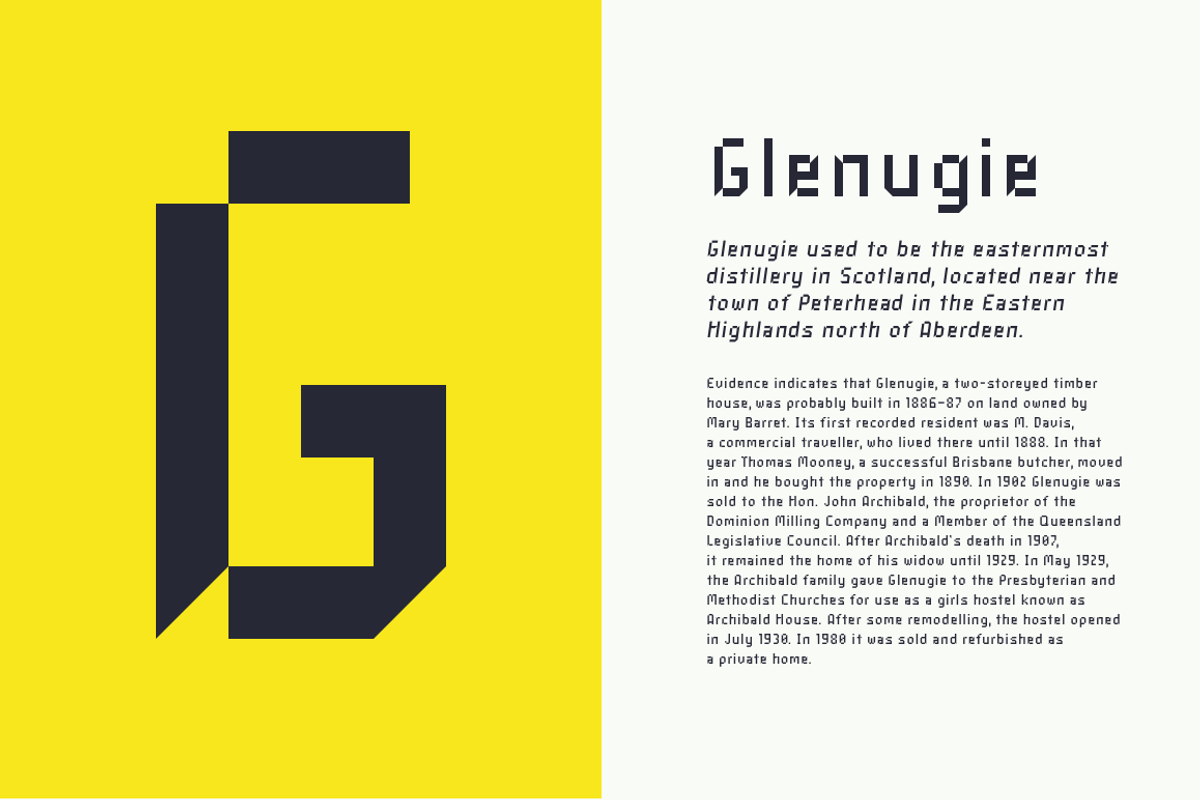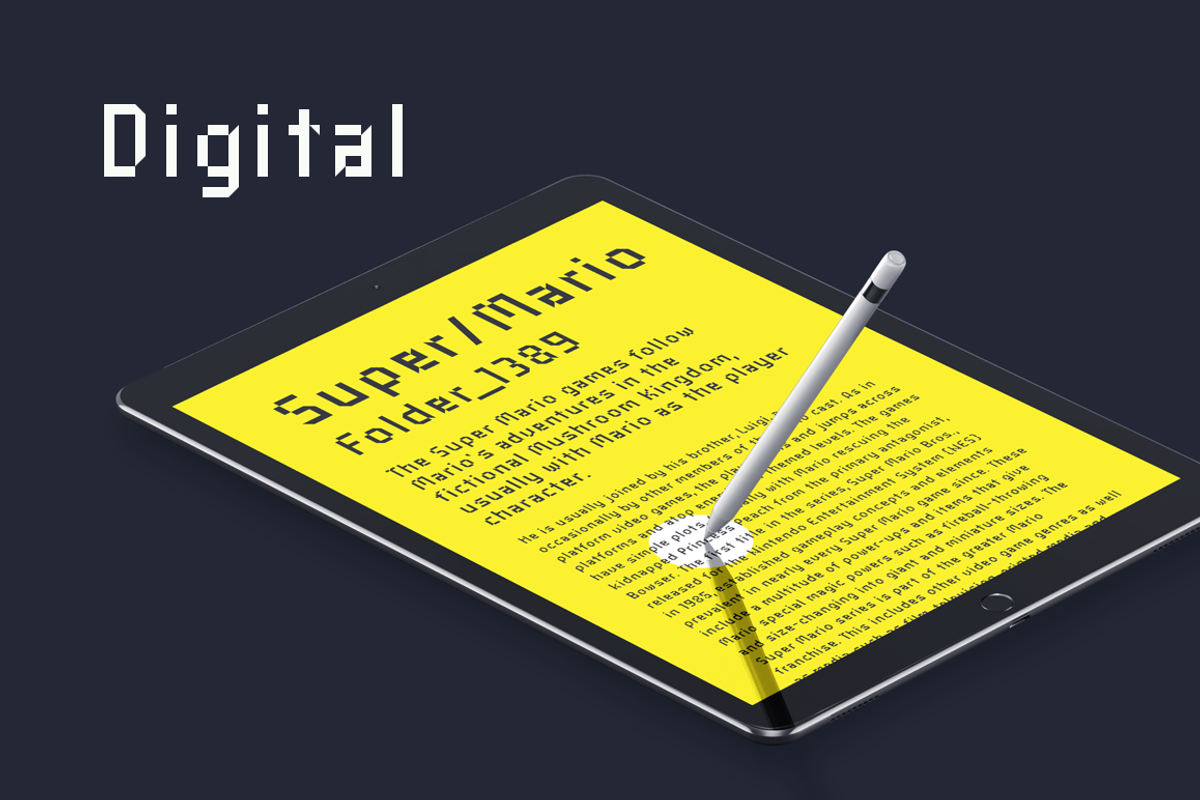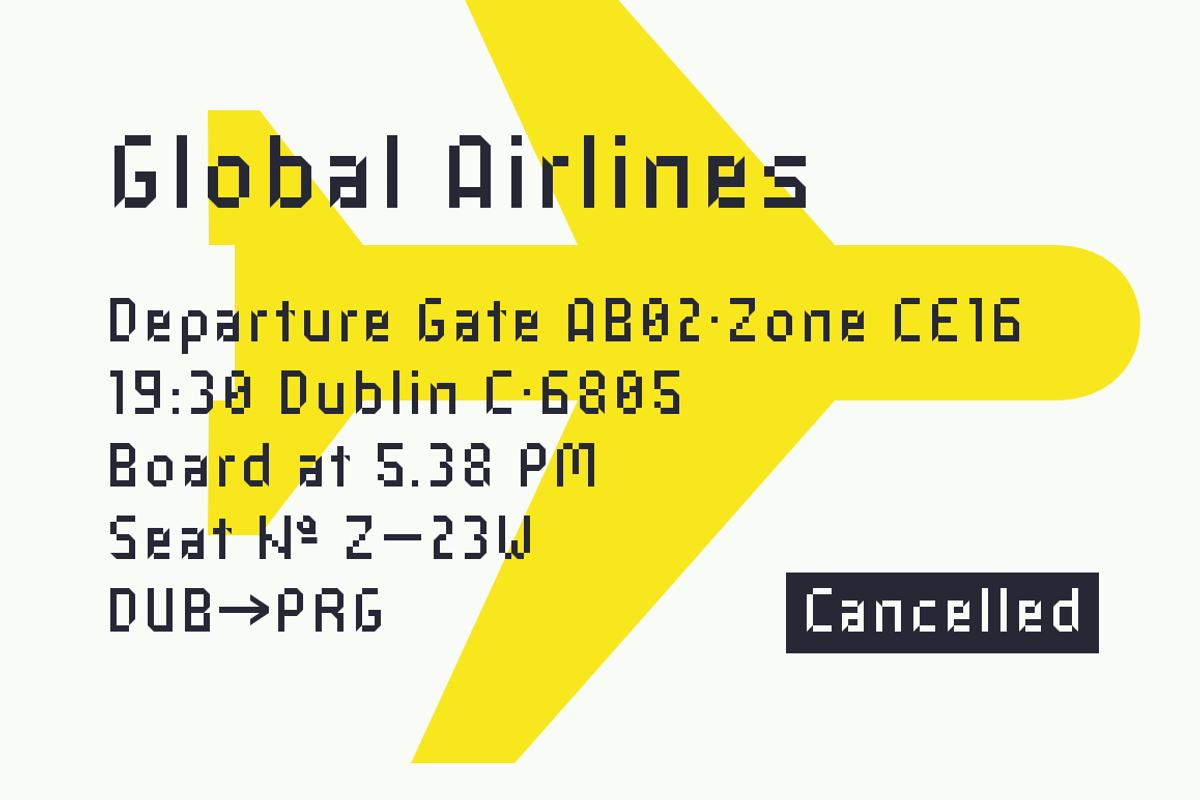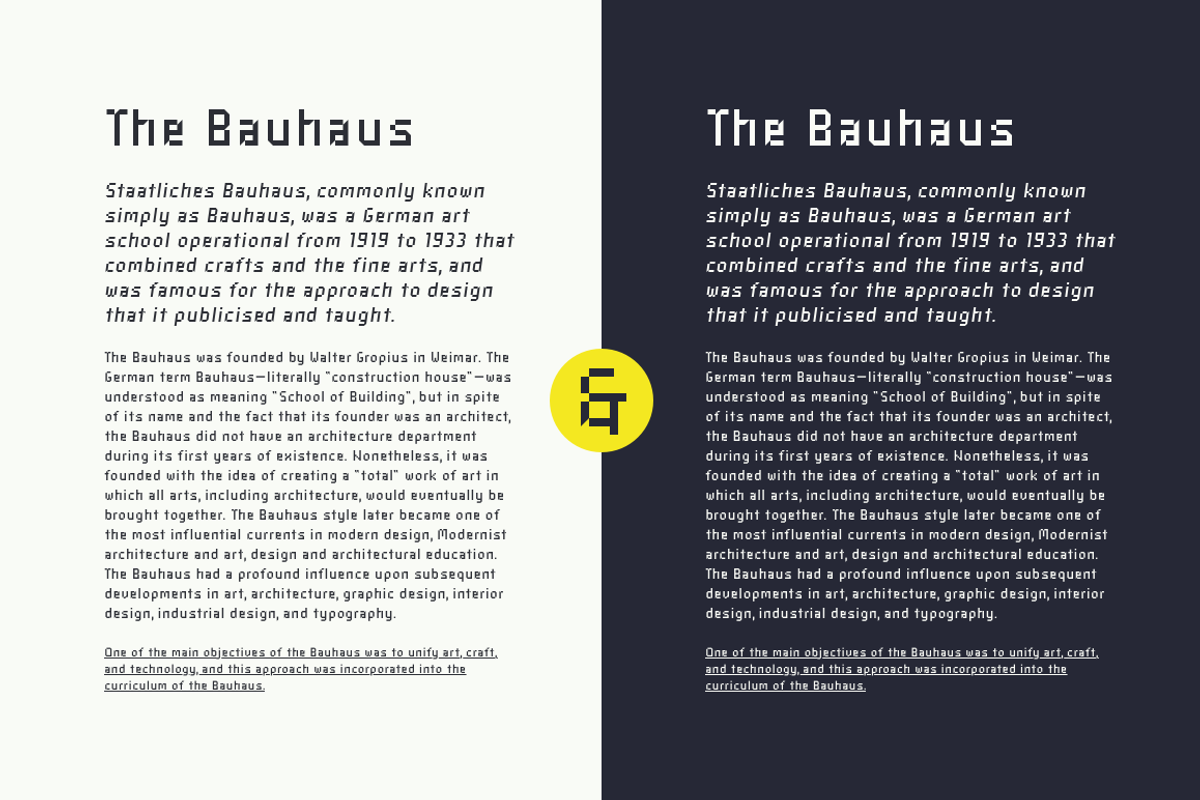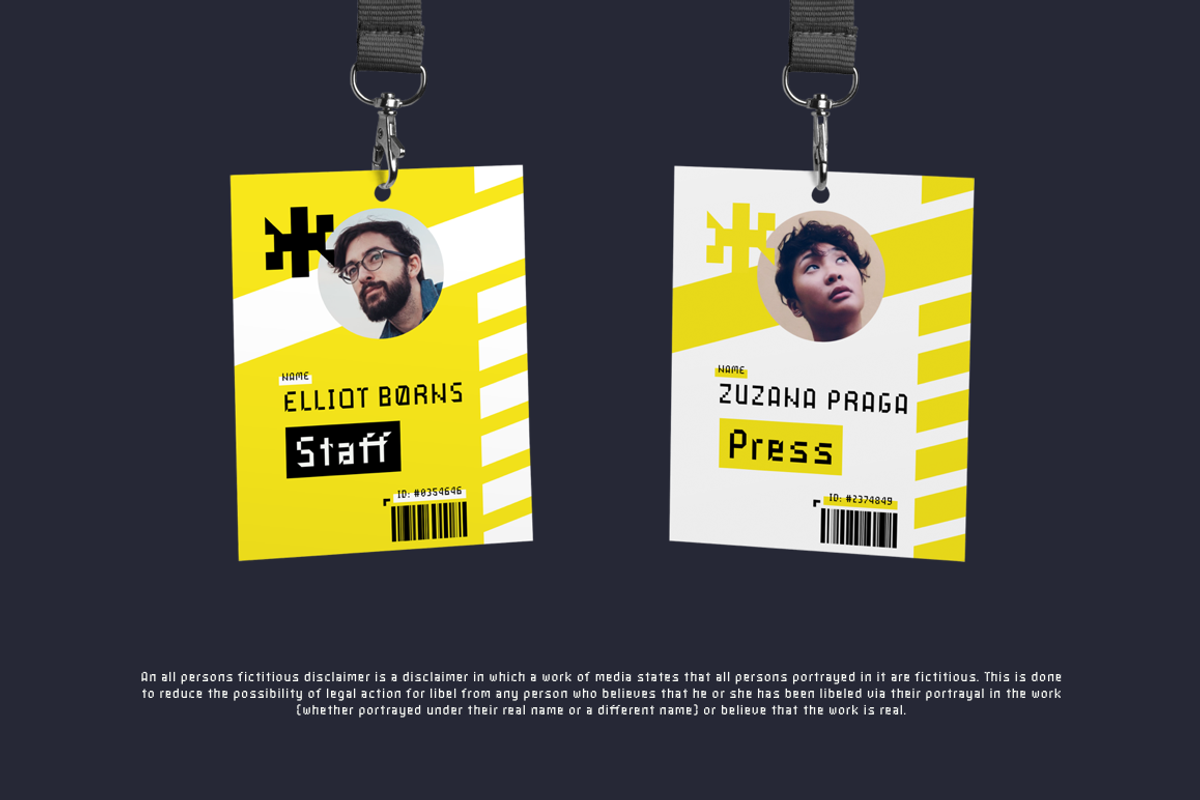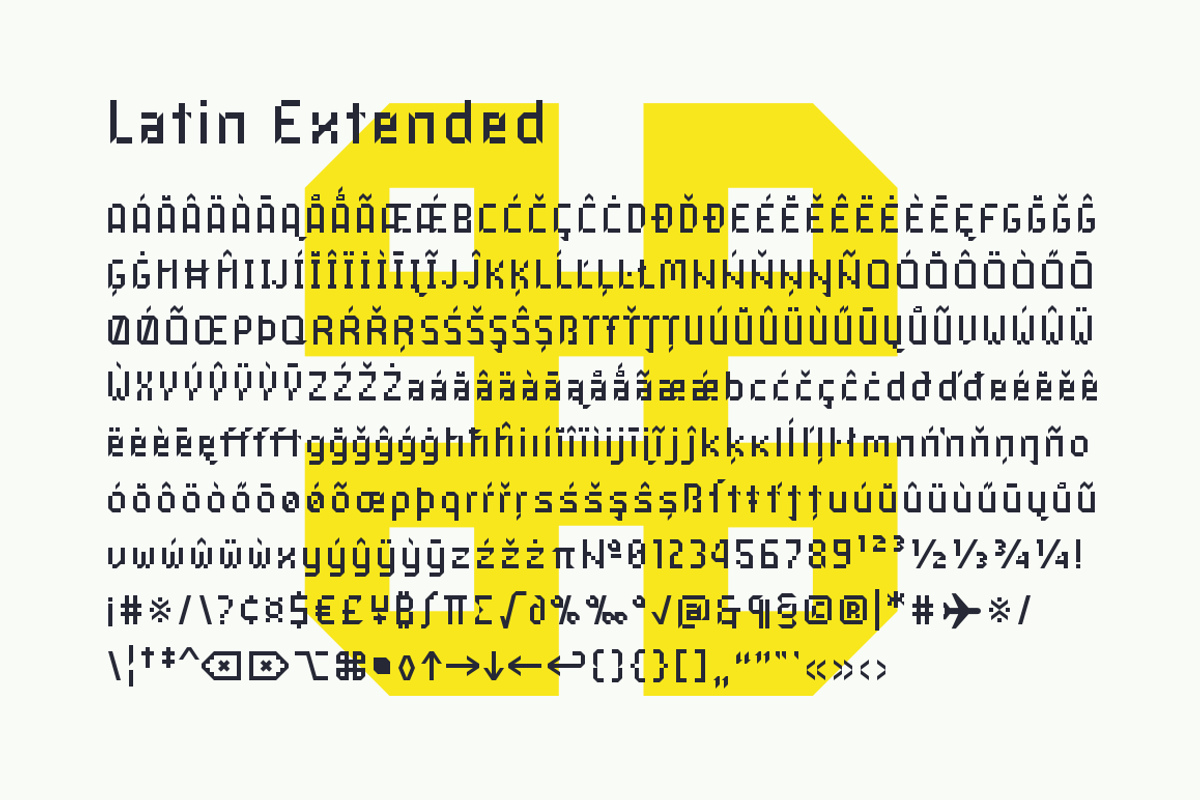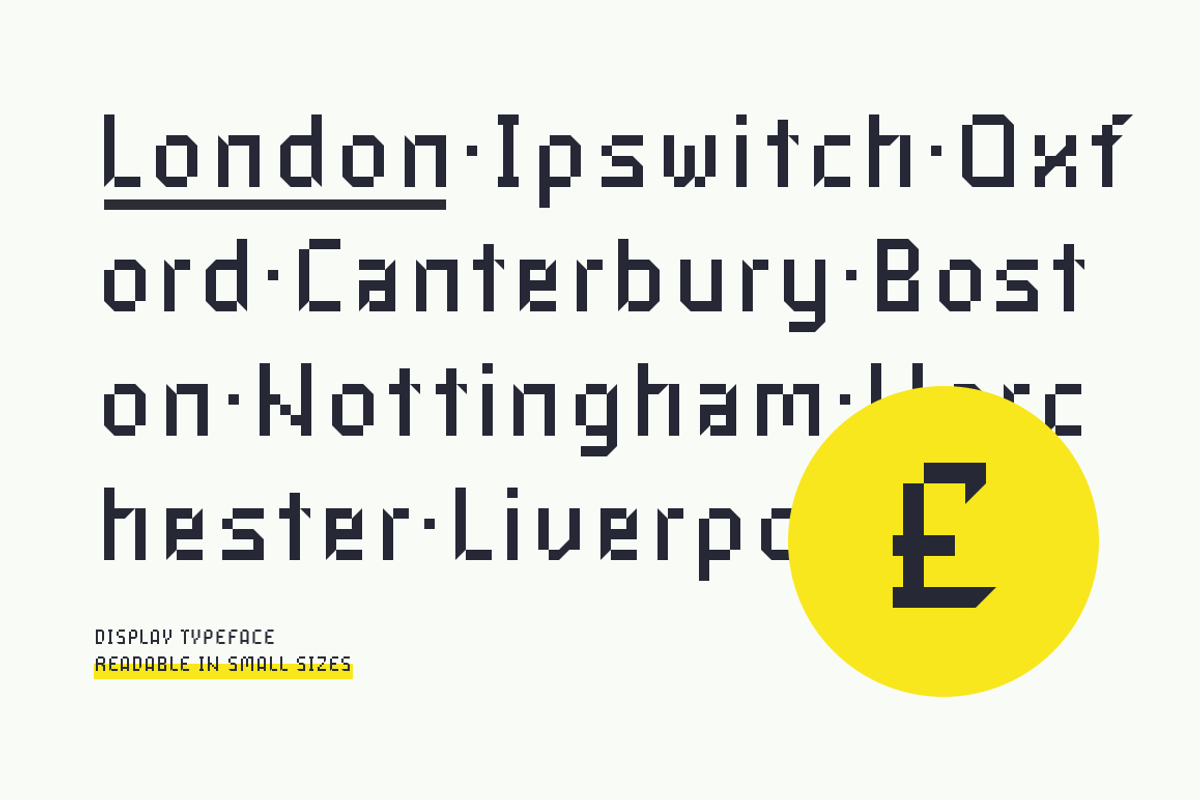
Industral typeface
Industral is a "pixel style" typeface for modern use. Highly suitable for small text. The common feature is sharp edges and square base construction which enables legibility for long text paragraphs. Contains a total of 413 glyphs, including latin extended diacritics for most languages.
Industral contains regular and italic style.